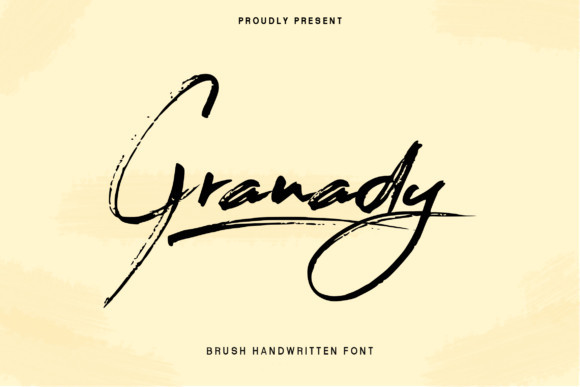
Granady Font
Granady is a lovely and romantic brushed script font. Featuring a delicate style, this font will be an incredible asset to your fonts’ library, as it has the potential to elevate any creation.